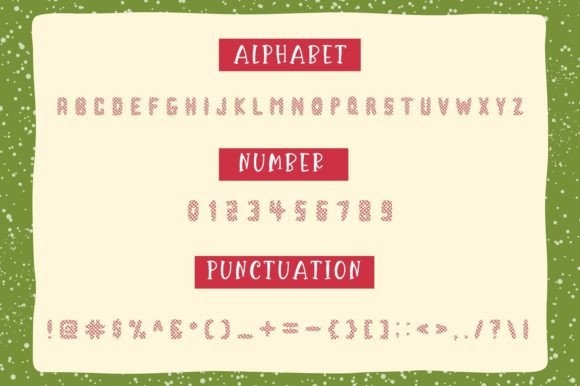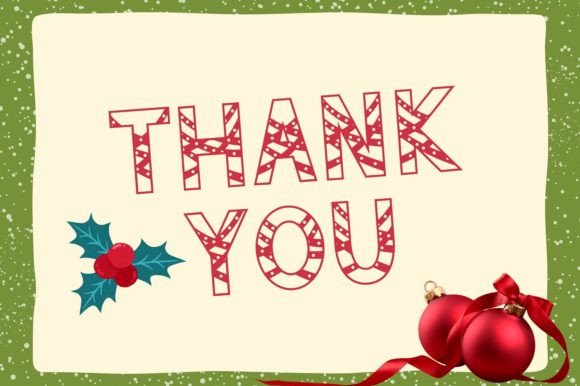
Introduction to Ribbon Party Font
As a designer, there’s nothing quite like the thrill of bringing a creative project to life. It’s the moment when all the pieces come together, and you get to see your vision take shape. For many of us, that moment is often accompanied by a dash of festive cheer, especially during the holiday season. And what better way to add some sparkle to your design than with a font that embodies the spirit of celebration?
Enter the Ribbon Party Font – a delightful, high-quality design resource that’s sure to add a touch of authenticity to any project. This free download is the perfect choice for designers looking to create something truly special, from blog posts and logos to invitations and decorations. With its transparent background and playful charm, the Ribbon Party Font is an invaluable resource for anyone looking to add a little extra magic to their designs.
Whether you’re working on a festive project or simply want to add some holiday cheer to your branding, the Ribbon Party Font is a valuable asset to have in your design toolkit. So why not give it a try and see the difference it can make to your creative projects?
Ribbon Party Font
- High-quality design resource perfect for creative projects, including invitations, party decorations, and more.
- Features a transparent background, making it easy to use in various design scenarios.
- Includes a wide range of characters, including uppercase and lowercase letters, numbers, and special symbols.
- Designed with a playful and festive style, ideal for parties, celebrations, and other fun events.
Honest Review: Ribbon Party Font
I recently had the chance to experiment with the Ribbon Party Font, and I must say it’s a delightful addition to any design project. ✨ Its playful, whimsical style is perfect for creating eye-catching graphics and decorations for special occasions.
The font is available for free download, making it an excellent design resource for creatives on a budget. The quality is top-notch, with a crisp, clean appearance that looks great on any background.
Some of the things that work well with the Ribbon Party Font include:
- Its versatility – it can be used for a wide range of creative projects, from birthday invitations to wedding decorations.
- Its high-quality design, which makes it perfect for printing or using on digital platforms.
- Its transparent background, which allows for easy layering and customization.
However, I did encounter a few limitations with the Ribbon Party Font, including:
- The limited character set, which may not be suitable for longer text-based projects.
- The font’s tendency to get a bit blurry when scaled up or down.
Overall, I’m thoroughly impressed with the Ribbon Party Font and would definitely recommend it to anyone looking for a fun, creative font for their next design project.
To get the most out of the Ribbon Party Font, try using it with a transparent background to create a subtle, elegant look. You can also experiment with different font sizes and colors to add visual interest to your design.
The Ribbon Party Font is perfect for a variety of creative projects, including wedding invitations, baby shower invitations, and party decorations. It’s also great for adding a touch of sophistication to business cards and other marketing materials.